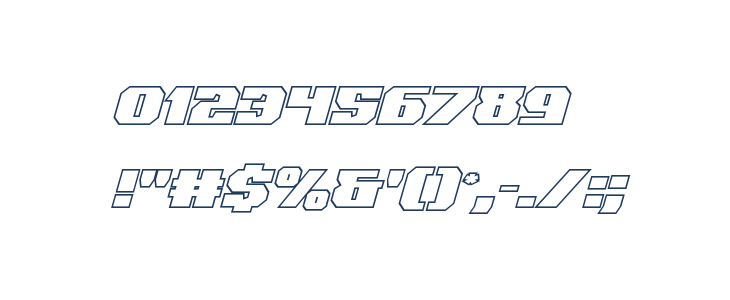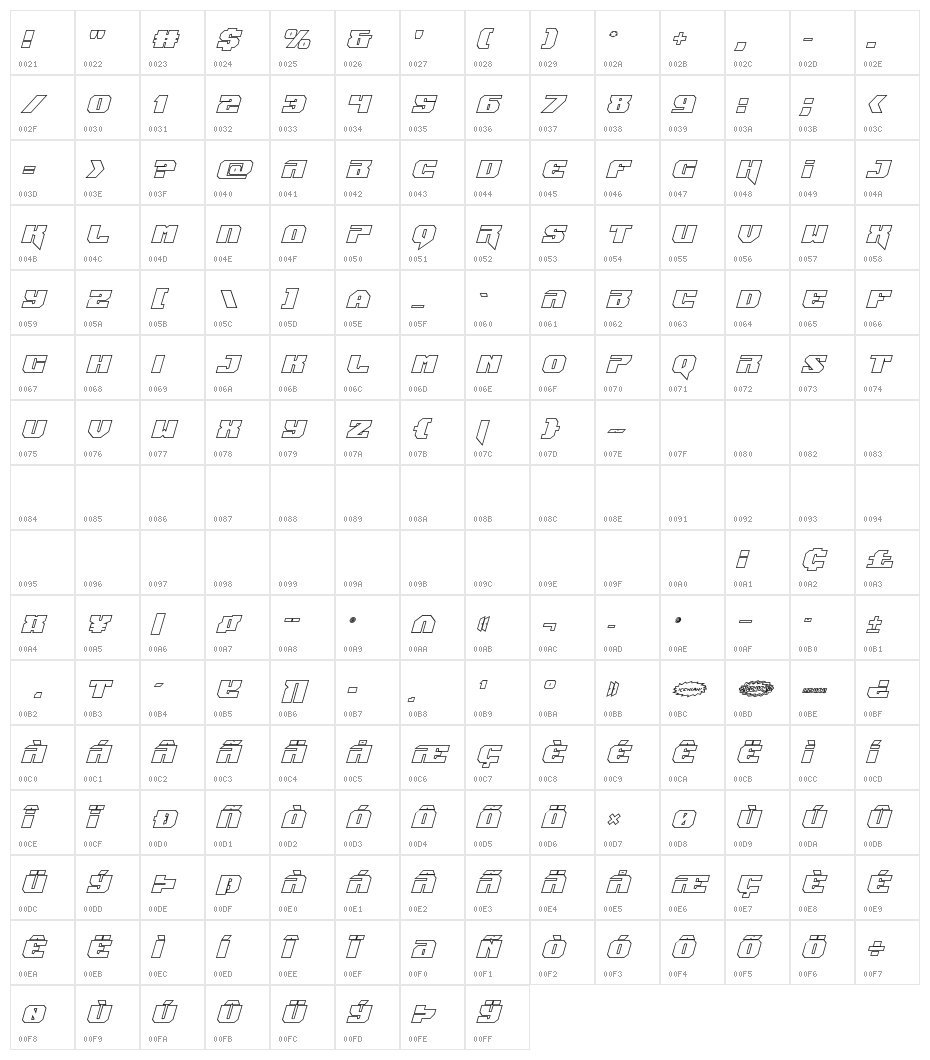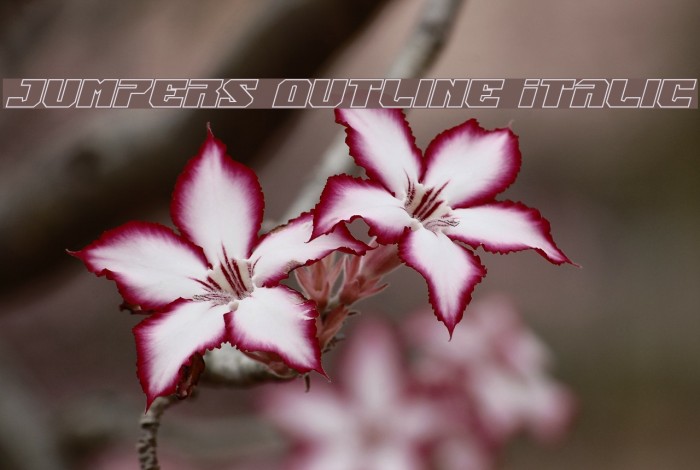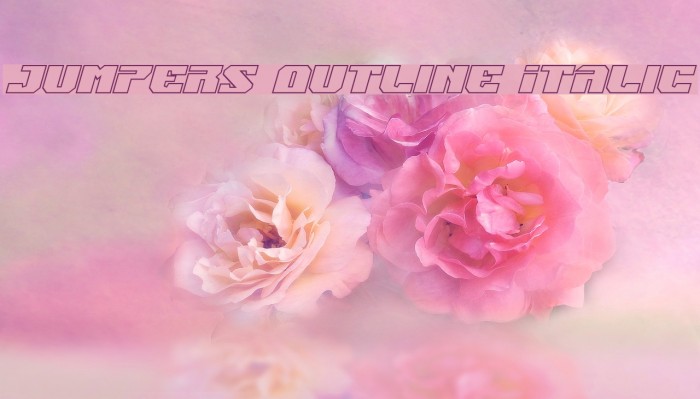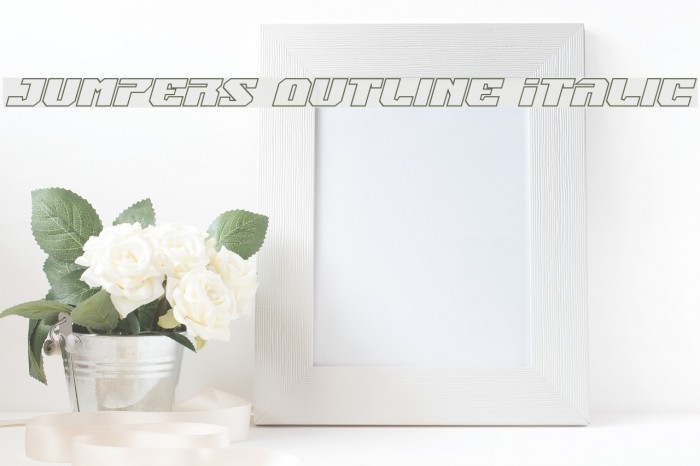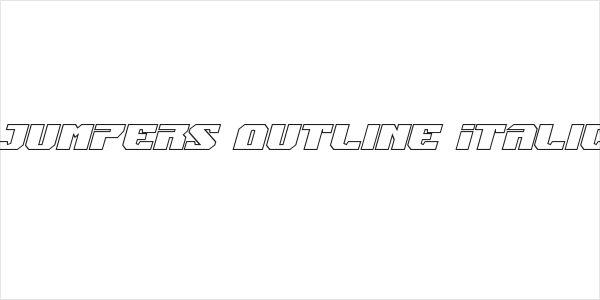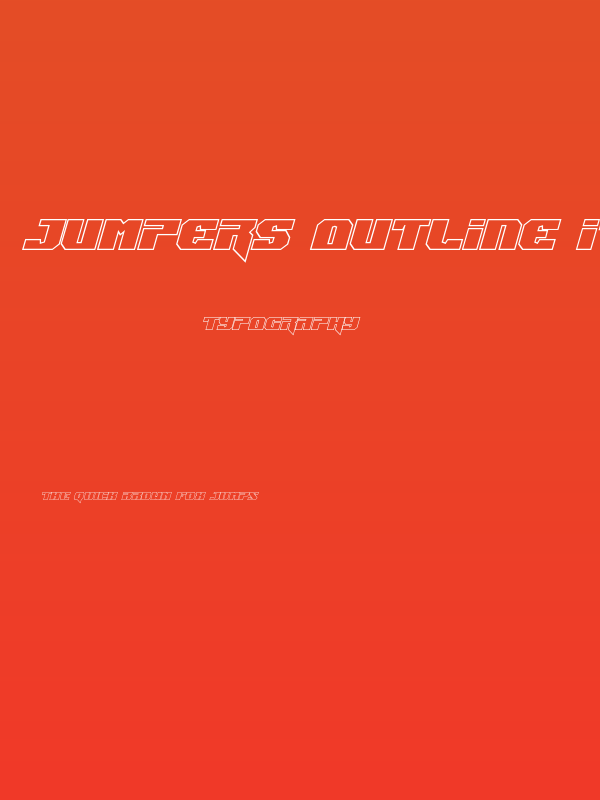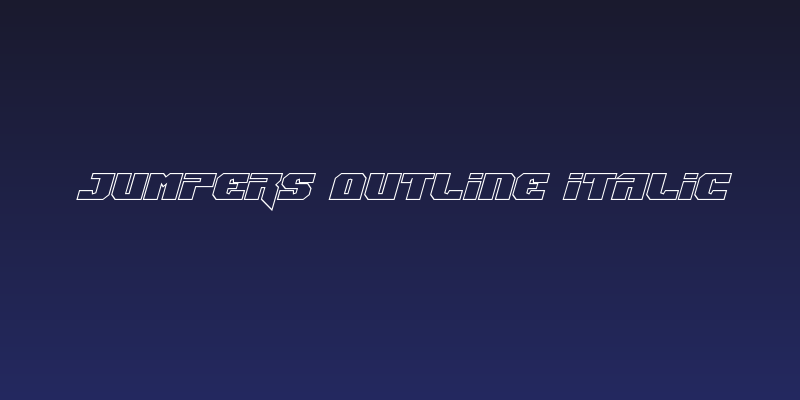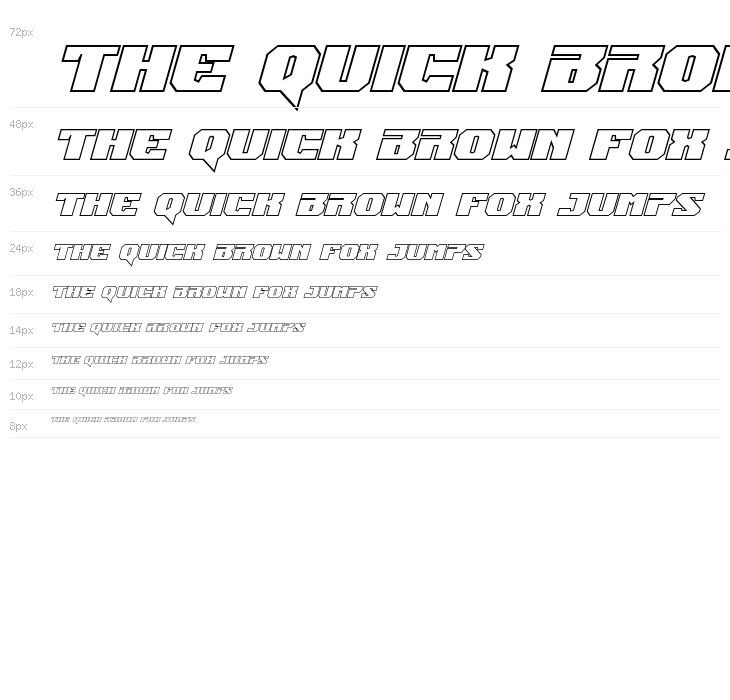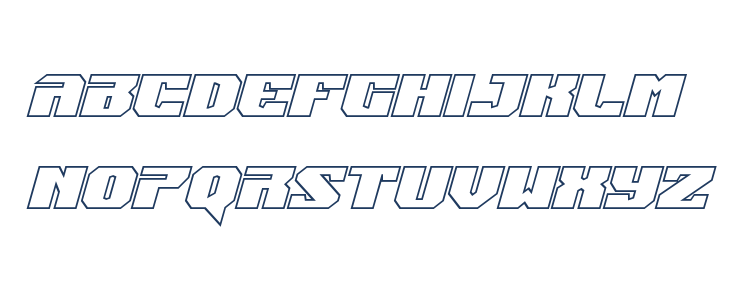
Jumpers Outline Italic Font
Jumpers Outline Italic Description
This font features a bold, geometric outline style with a distinct italic slant, giving it a dynamic and modern appearance. The characters are angular and sharp, with a consistent thickness throughout the strokes, creating a uniform look. The uppercase and lowercase letters maintain a cohesive design, while the numbers and special characters complement the overall aesthetic. The outline effect adds a layer of depth, making the font suitable for eye-catching designs.